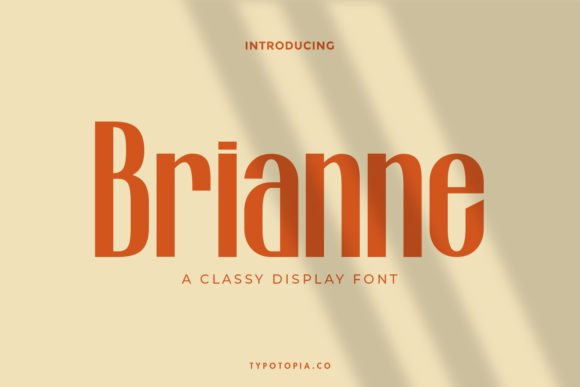
Unleashing Your Creative Potential with Brianne Font
Have you ever stared at a blank canvas, eager to bring your vision to life, but struggling to find the right words to express it? You’re not alone. As creatives, we’ve all been there – searching for that perfect font to elevate our ideas and make them stand out. And that’s exactly where Brianne Font comes in – a classic and bold display font designed to give your creative projects a unique touch.
Brianne Font is more than just a font; it’s a statement piece that adds a retro and simple charm to any design. Its versatility makes it perfect for a wide range of applications, from branding and advertising to digital media and print materials. Whether you’re a seasoned designer or just starting out, Brianne Font is an invaluable asset that will help you take your designs to the next level.
- Font Family: Brianne is a sans-serif font family.
- Font Styles: The font family includes a range of styles, including regular, bold, italic, and bold italic.
- Unique Characteristics: Brianne features a clean, modern design with a subtle rounded edge, making it suitable for a wide range of applications, from body text to headlines.
Brianne Font Review
Overall, I think Brianne Font has some lovely qualities, but it’s not without its flaws. Let’s dive in and explore what makes it tick. ✨
- Unique character set: Brianne Font has a distinct set of characters that make it stand out from more generic fonts. The flourishes and details add a touch of elegance.
- ⚠️ Limited language support: Brianne Font currently only supports a limited set of languages, which may be a problem for designers working on projects that require multilingual support.
- ⚠️ Some characters may not render correctly: I noticed that some characters, particularly in certain font sizes, can appear a bit wonky or distorted. This may be a issue with the font’s rendering, but it’s worth noting.
Overall, Brianne Font is a solid choice for designers who want a unique, elegant font for their projects. While it has some limitations, its customization options and open-source nature make it a great value. With some tweaks and updates, I think Brianne Font could be a real showstopper.
Tips for Getting the Most Out of Brianne Font
Use the Brianne Font for headings and titles to create a unique and elegant look. Experiment with different font sizes and colors to create visual interest. Combine the Brianne Font with other fonts to create a harmonious and balanced design.
The Brianne Font is suitable for a variety of designs, including:
- Photography and art portfolios